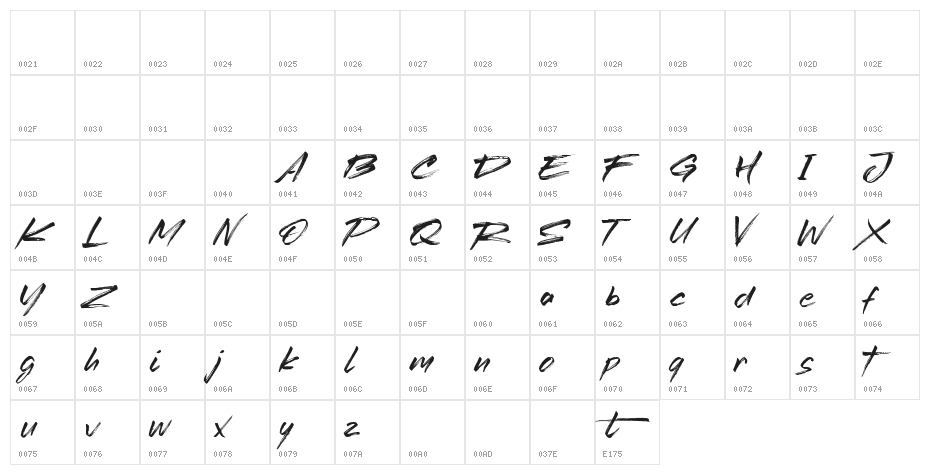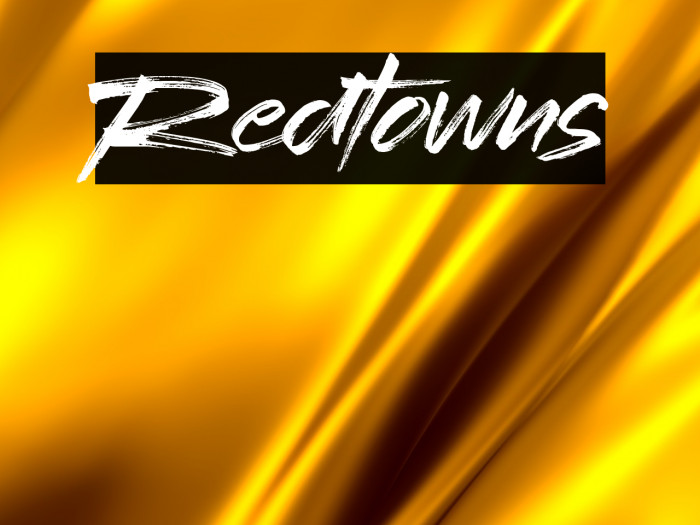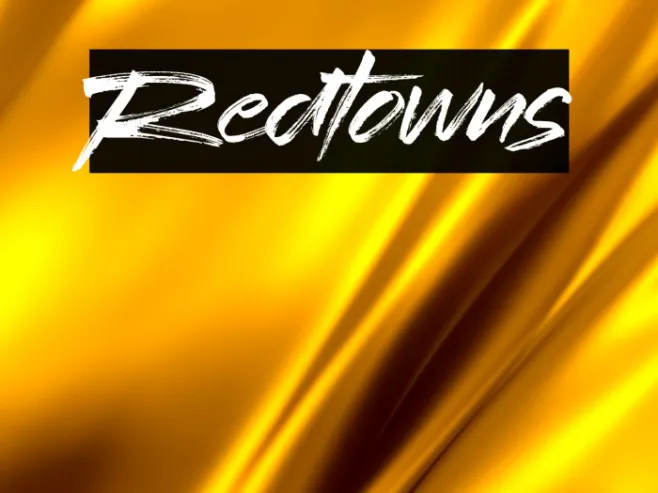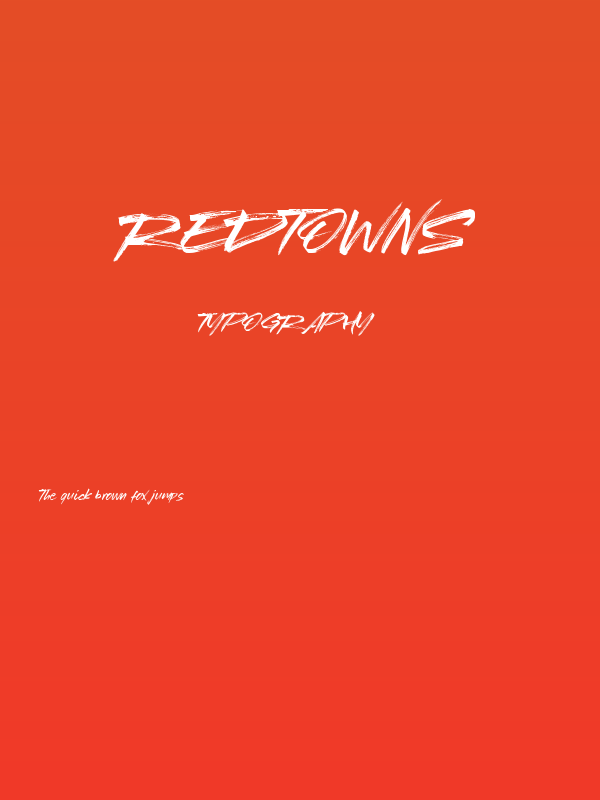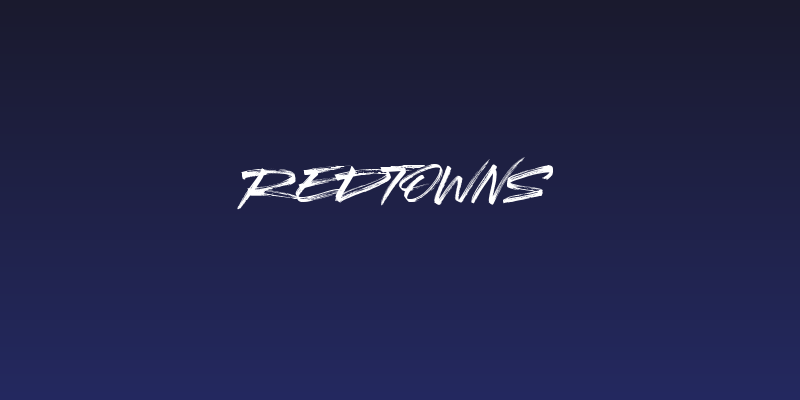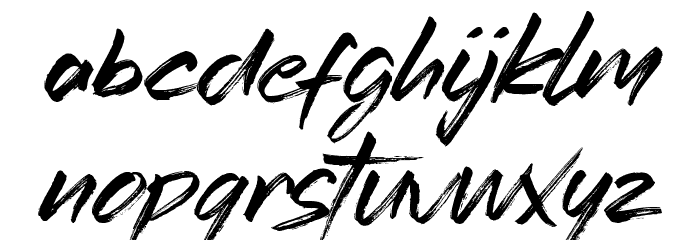
Redtowns Font
Redtowns Description
This font exudes a bold and dynamic energy, characterized by its brush-like strokes and expressive, hand-drawn appearance. The letters are crafted with a sense of movement and fluidity, giving it a lively and artistic feel. The uppercase and lowercase letters maintain a consistent style, with varying thickness in the strokes that add depth and texture. The overall impression is one of creativity and spontaneity, making it ideal for projects that require a personal and artistic touch. The font's unique style is both modern and edgy, perfect for making a statement.